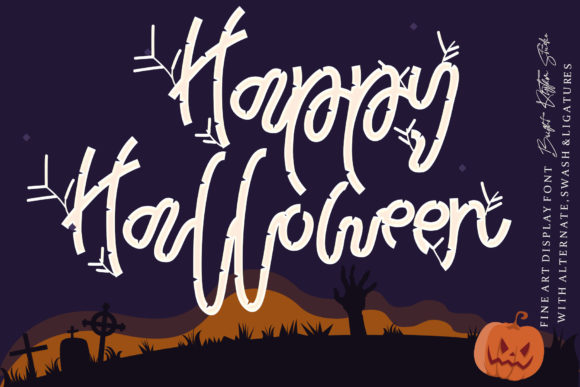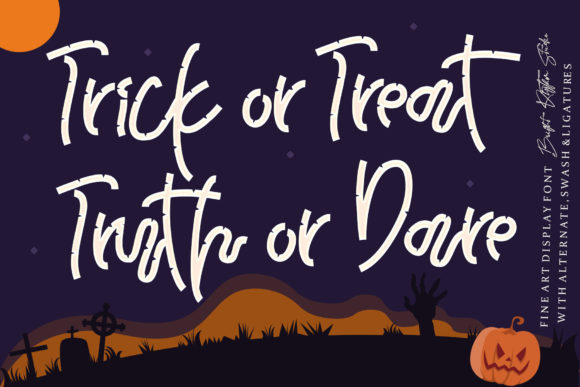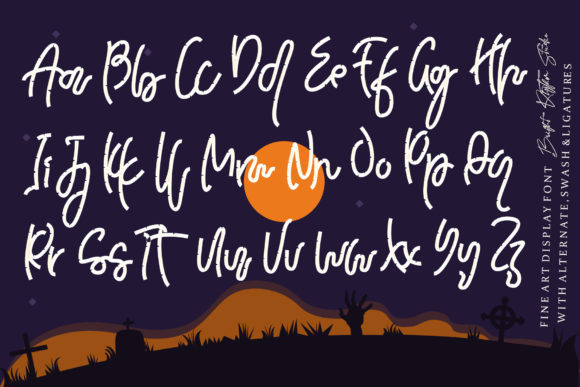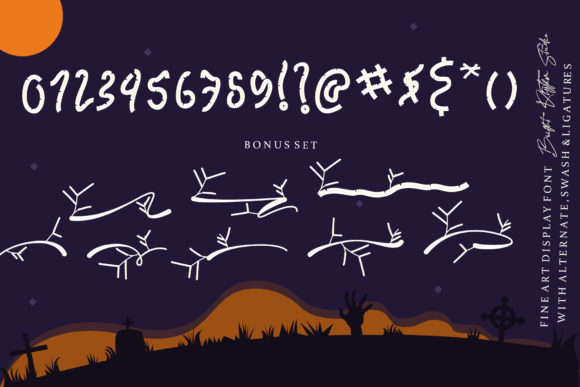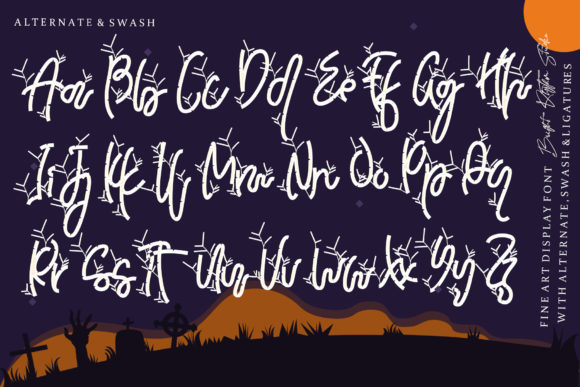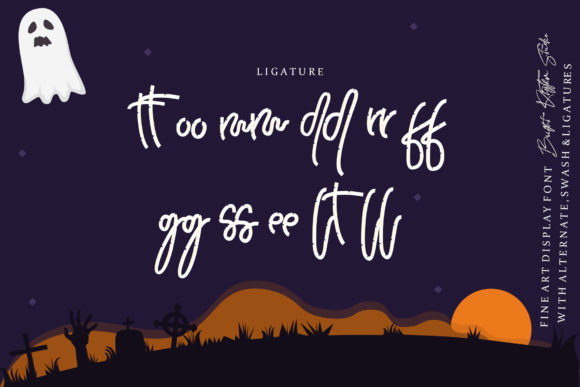
Introduction to Halloween Bamboo Font
Halloween Bamboo is a lovely script font featuring charming, playful characters that seem to dance along the baseline.
Add this font to your most creative ideas, and notice how it makes them stand out Halloween Bamboo is PUA encoded which means you can access all of the glyphs and swashes with ease.
Key Features of Halloween Bamboo Font
Why Choose Halloween Bamboo Font?